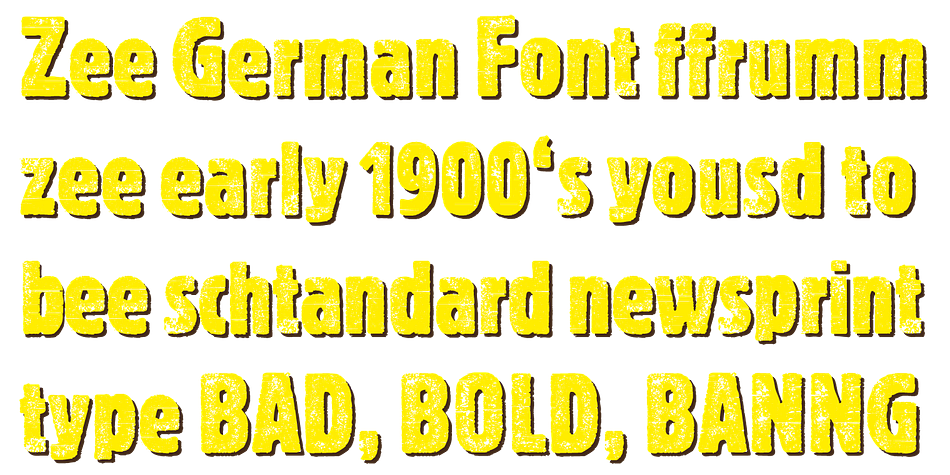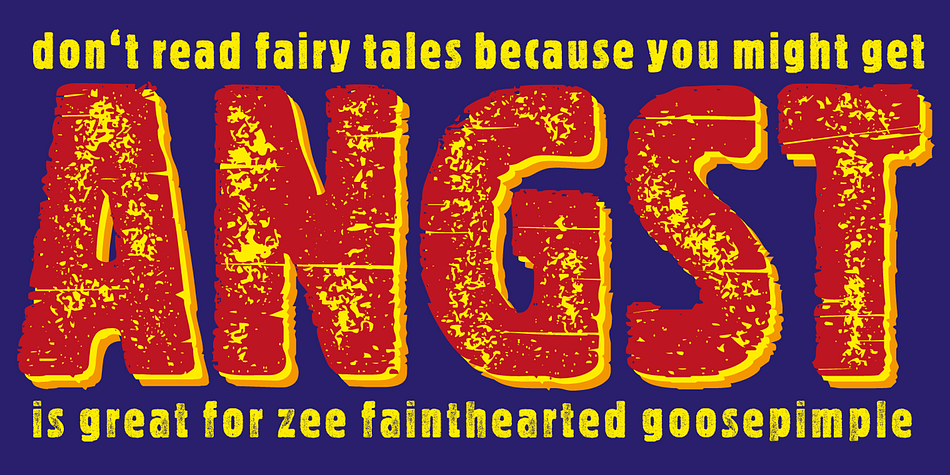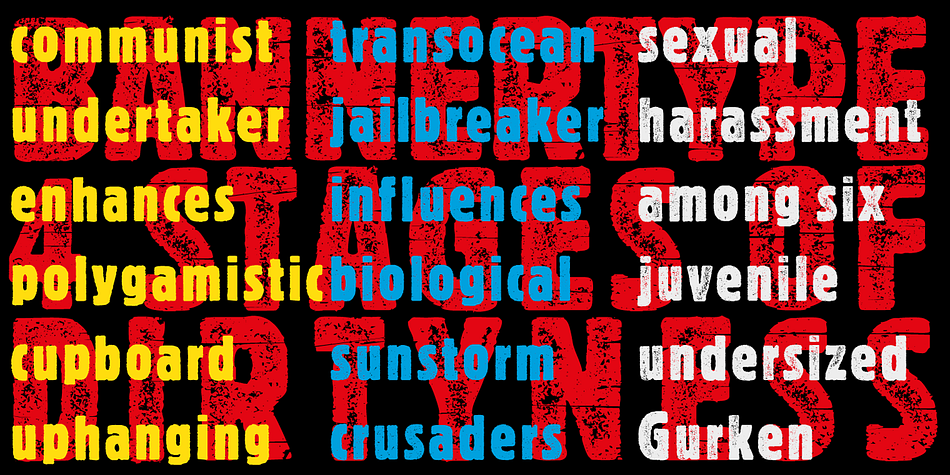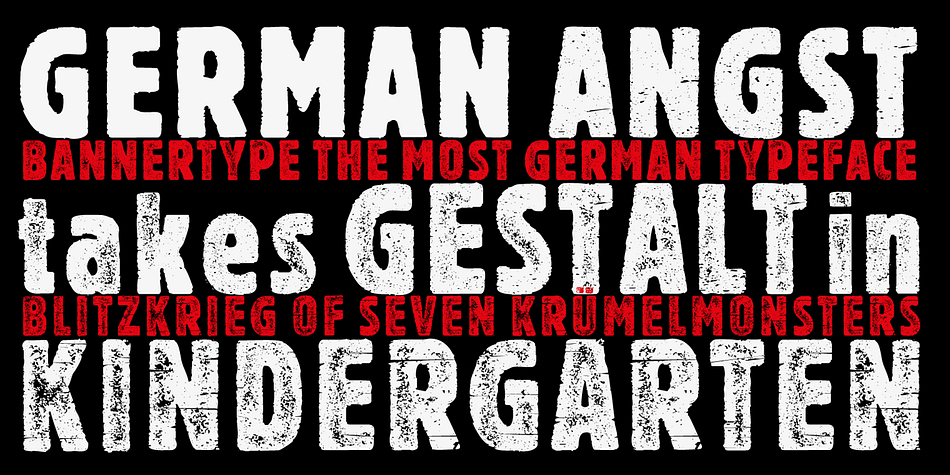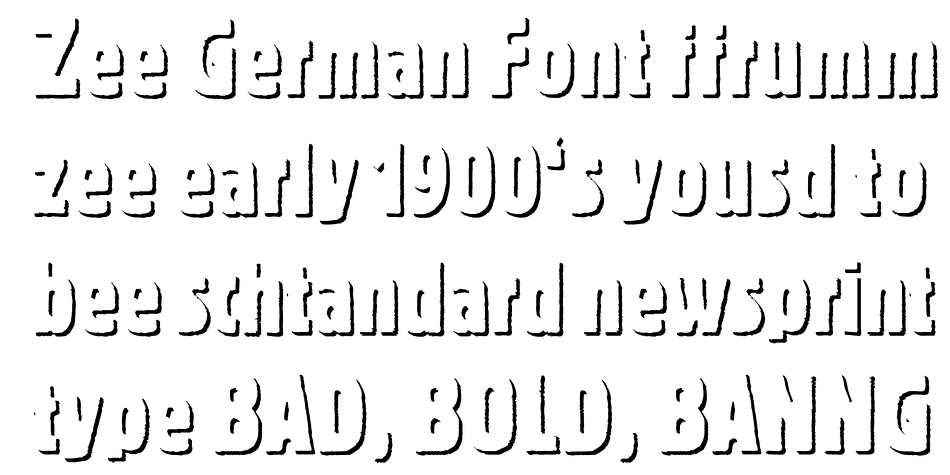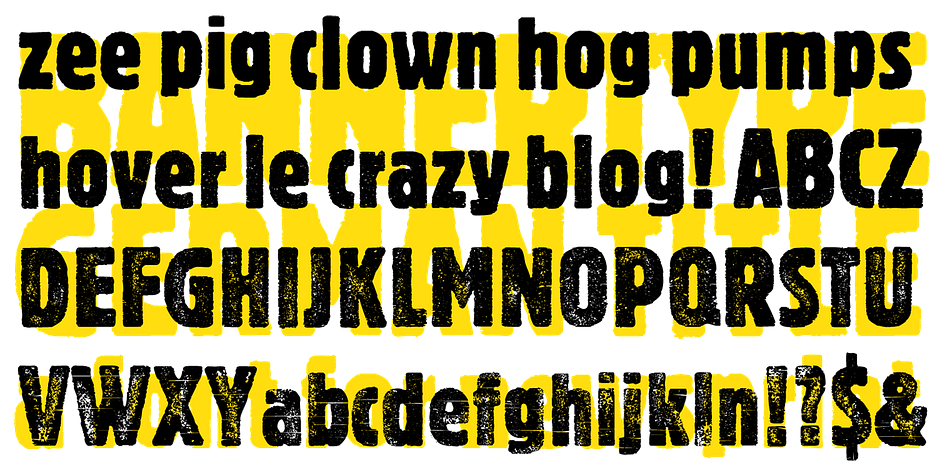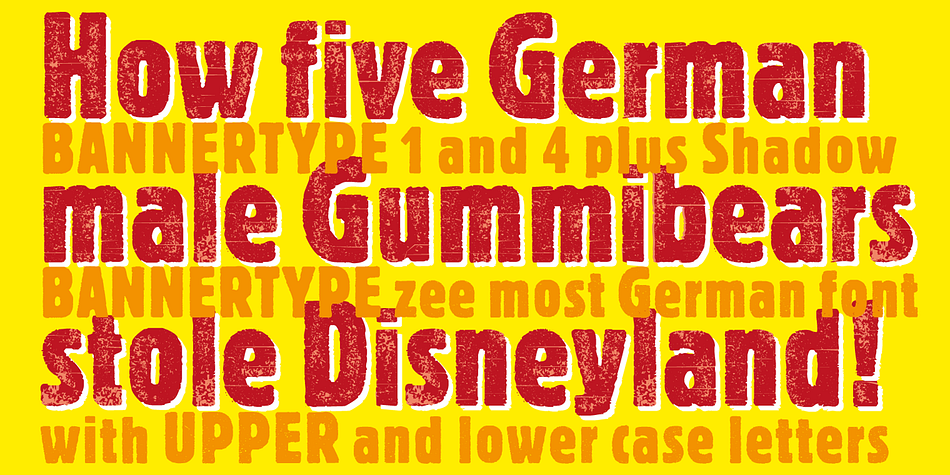
Bannertype is a grunge font family. This typeface has five styles and was published by Wiescher-Design.
»Bannertype« is – at least for my feeling – the most GERMAN of all fonts. It was used heavily mostly in newsprint and addvertising in the early 1900’s. I designed a dirty version of the narrow font in 4 stages of dirtiness, plus one free shadow font. Since the font has too many points I cannot generate a OTF-version, I am over the limit for that. But I have tried this TrueType version and it works like a jiffy in MacOS 10.8.2!